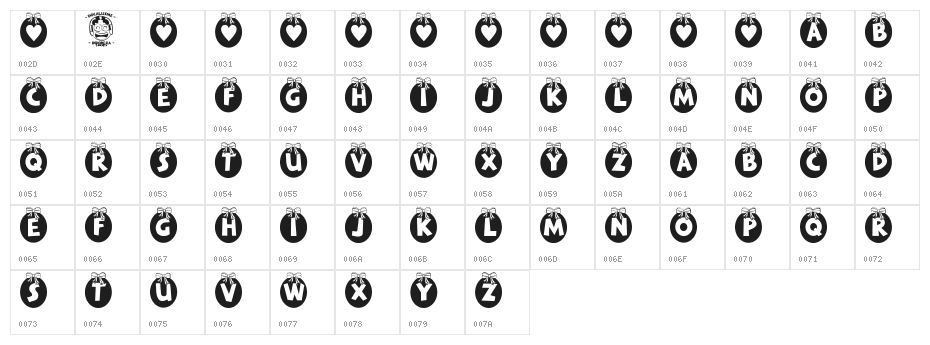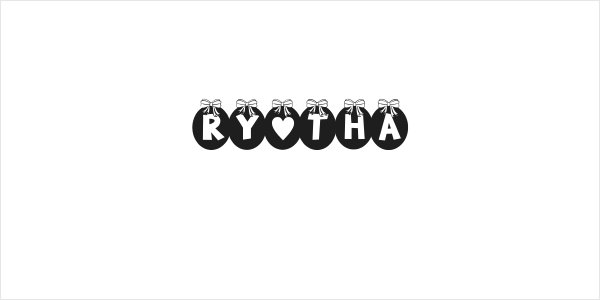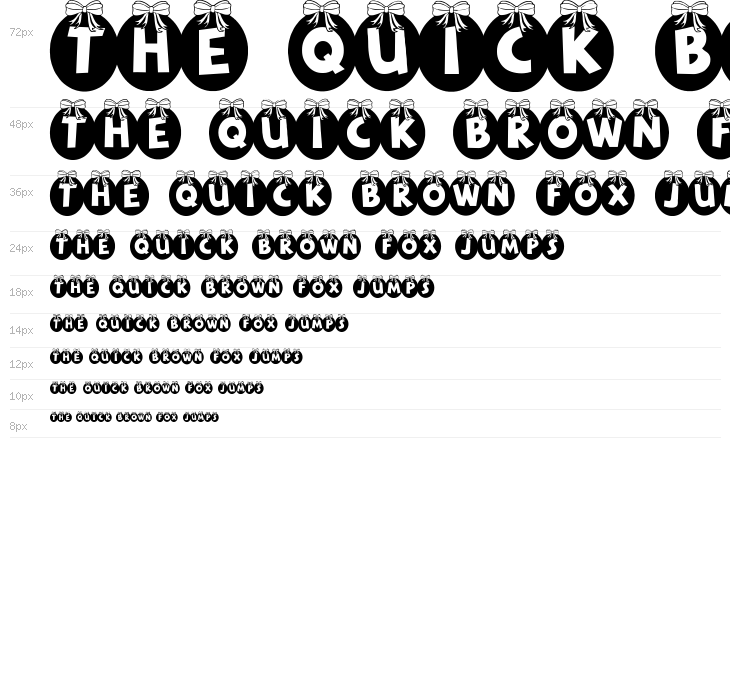
RY-THA Font
This font features a playful and whimsical design, characterized by its rounded and bold letterforms. Each character is crafted with a sense of fun, making it ideal for projects that require a lighthearted and approachable aesthetic. The strokes are consistent in thickness, providing a uniform appearance across all characters. The font includes a full set of uppercase and lowercase letters, numbers, and a selection of special characters, ensuring versatility in various design applications. Its unique style makes it stand out, while still maintaining readability.
A playful and bold font with rounded letterforms, perfect for fun and approachable designs.
- Proposed Projects: Ideal for children's books, playful branding, party invitations, and any project that requires a fun and engaging typeface.
- Overall Style: Playful